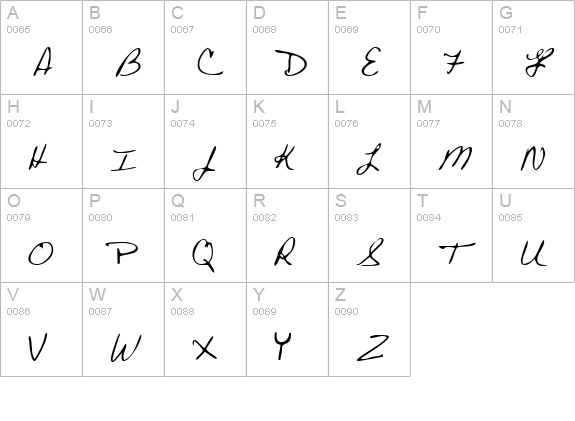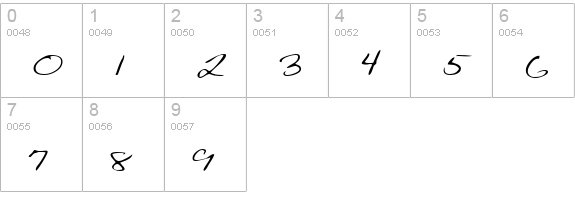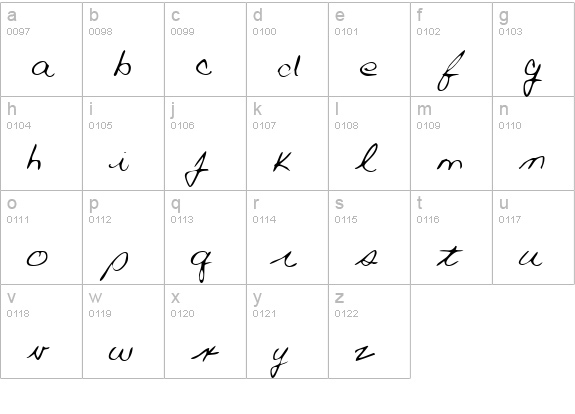
AubreysHand Regular Font Details
AubreysHand Regular is the standard, neutral variant in the AubreysHand typeface family \xE2\x80\x94 well suited to general body text, paragraphs, and standard typographic work.
AubreysHand Regular font is a charming and elegant typeface that exudes a sense of sophistication and grace. With its delicate strokes and flowing curves, this font is perfect for creating beautiful and memorable designs. Whether you're working on invitations, branding materials, or any other creative project, AubreysHand Regular will add a touch of class and refinement. The best part? AubreysHand Regular font is available for free download at FontsMarket.com. This means that you can easily access this stunning font and use it in your designs without any cost. Don't miss out on the opportunity to enhance your projects with the timeless beauty of AubreysHand Regular font. Download it now and elevate your design work to new heights.